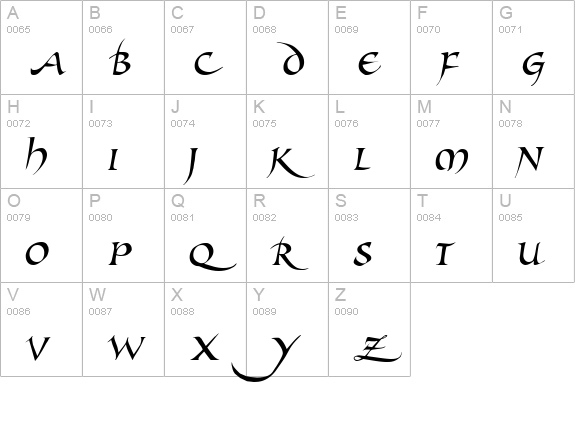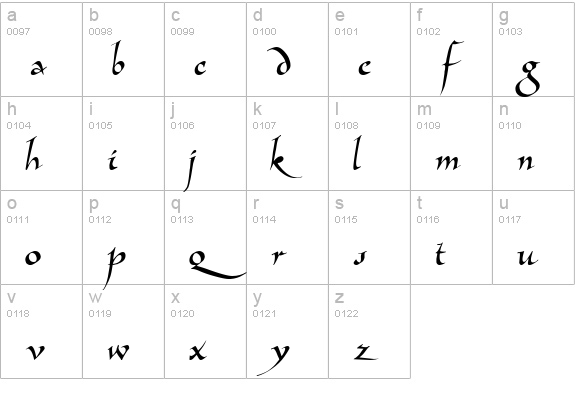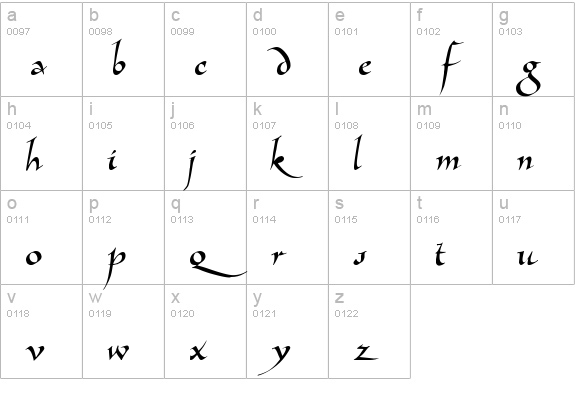
Allembertâ„¢ Font Details
The Allembert™ font is a modern and stylish typeface that exudes elegance and sophistication. With its sleek lines and graceful curves, this font is perfect for adding a touch of class to any project. Whether you're designing a logo, creating a website, or crafting a brand identity, Allembert™ is sure to make a lasting impression. What's even better is that Allembert™ is available for free download at FontsMarket.com. This means you can easily access this high-quality font without having to spend a dime. So go ahead and elevate your designs with Allembert™ - the perfect blend of beauty and functionality.